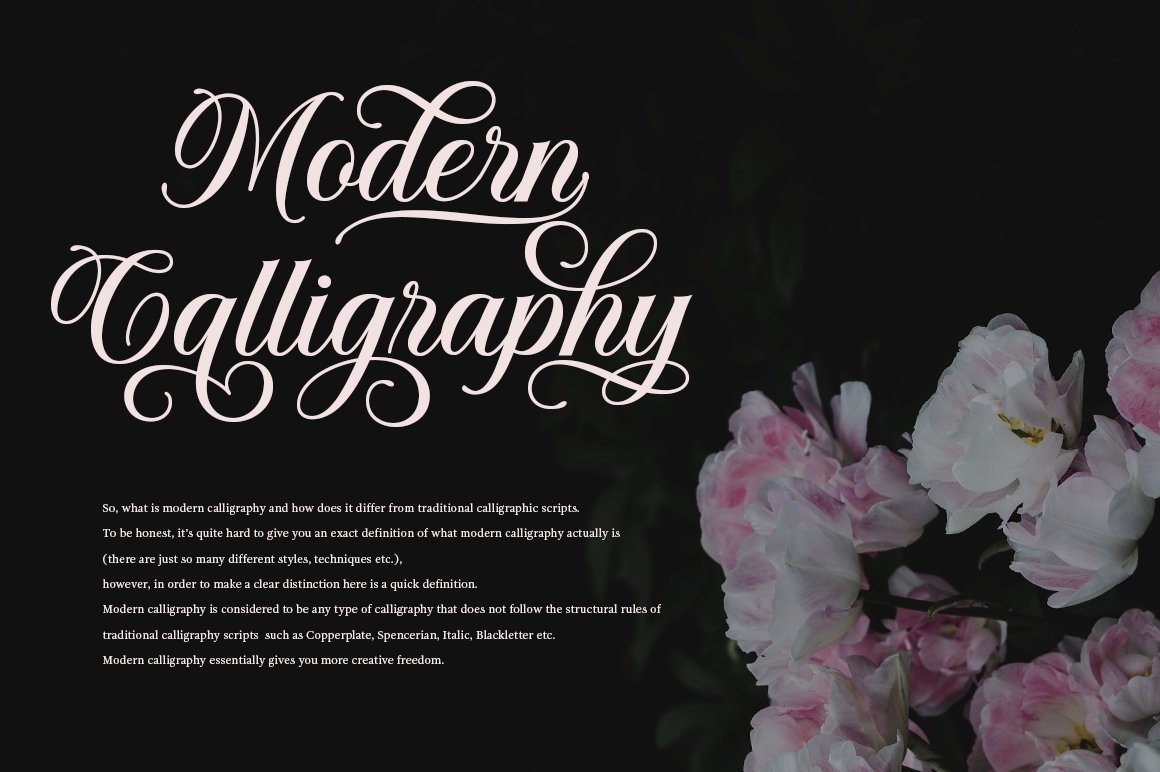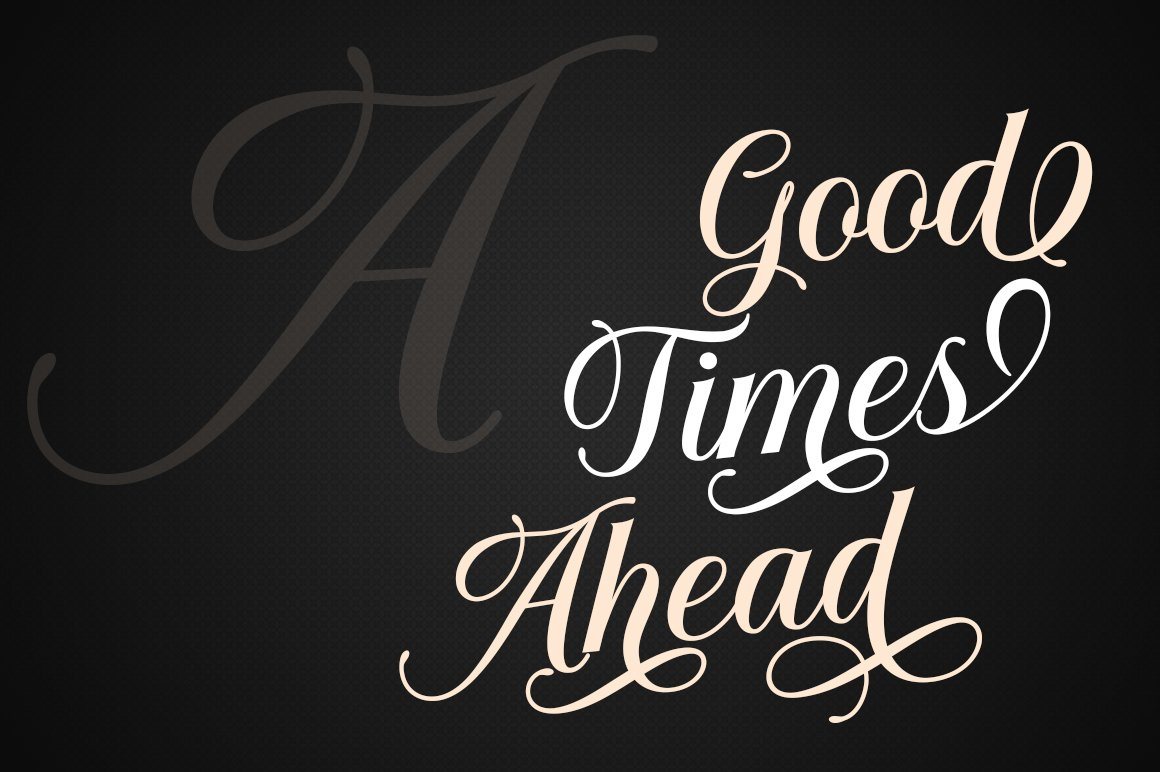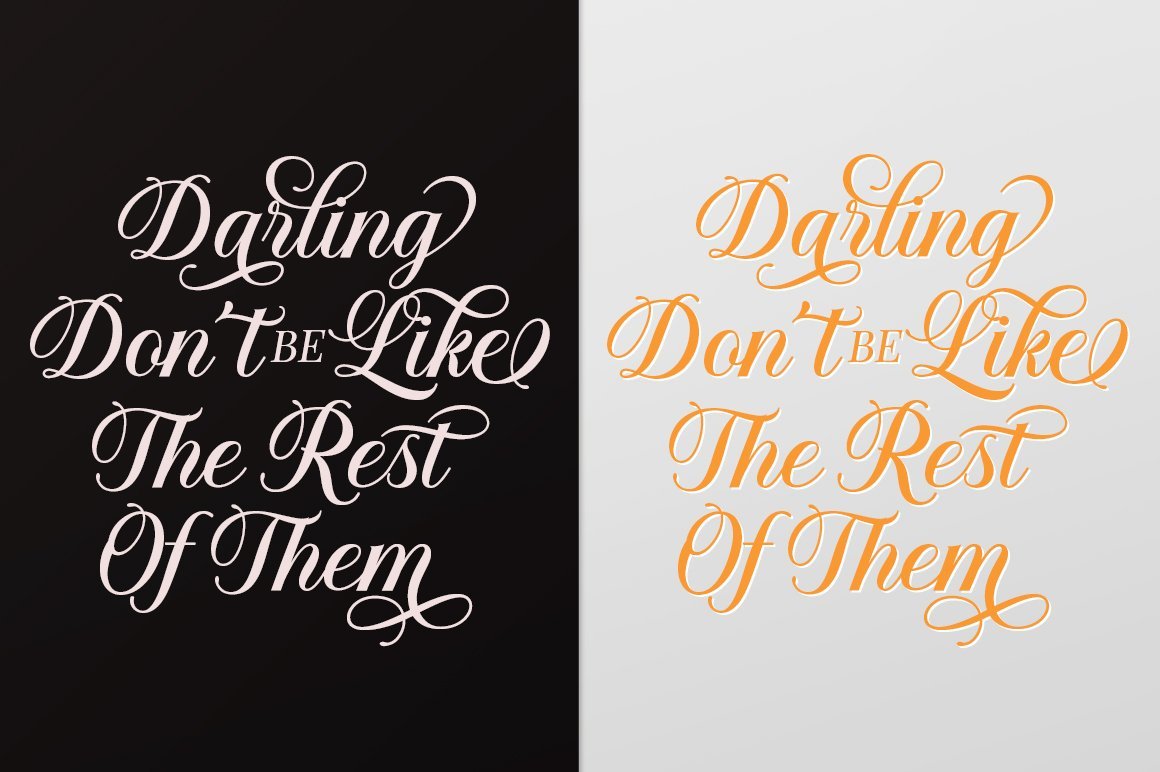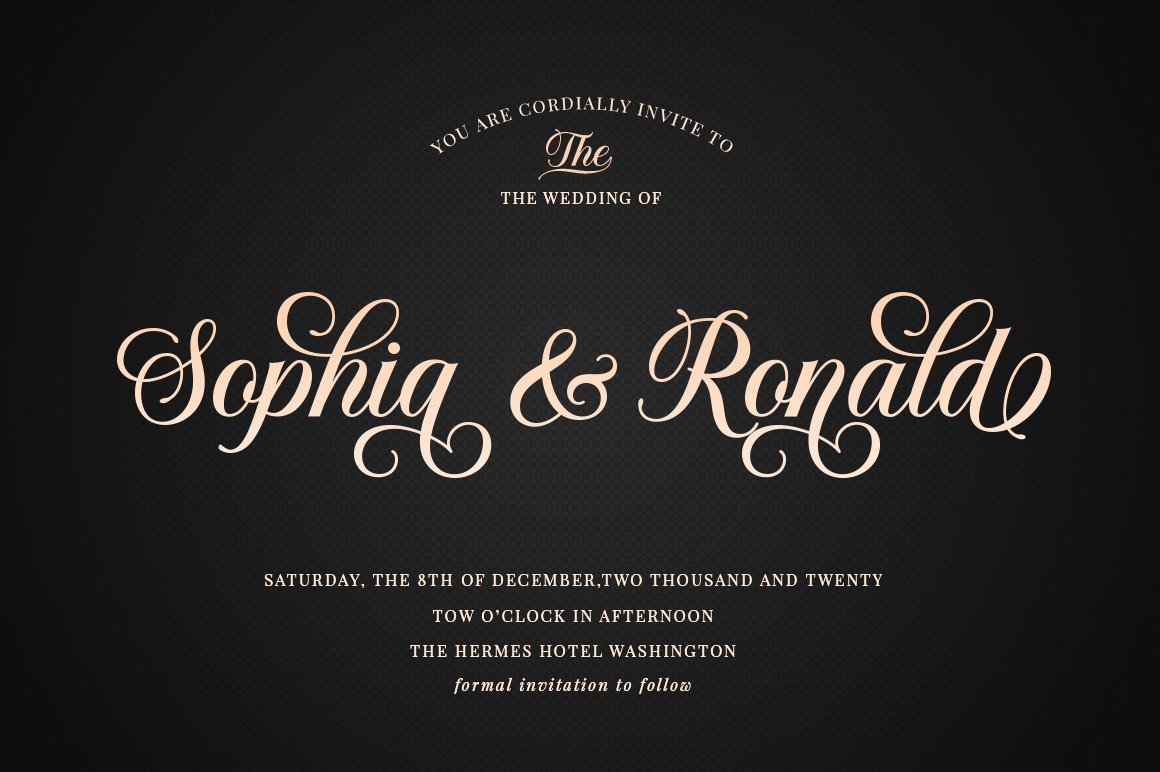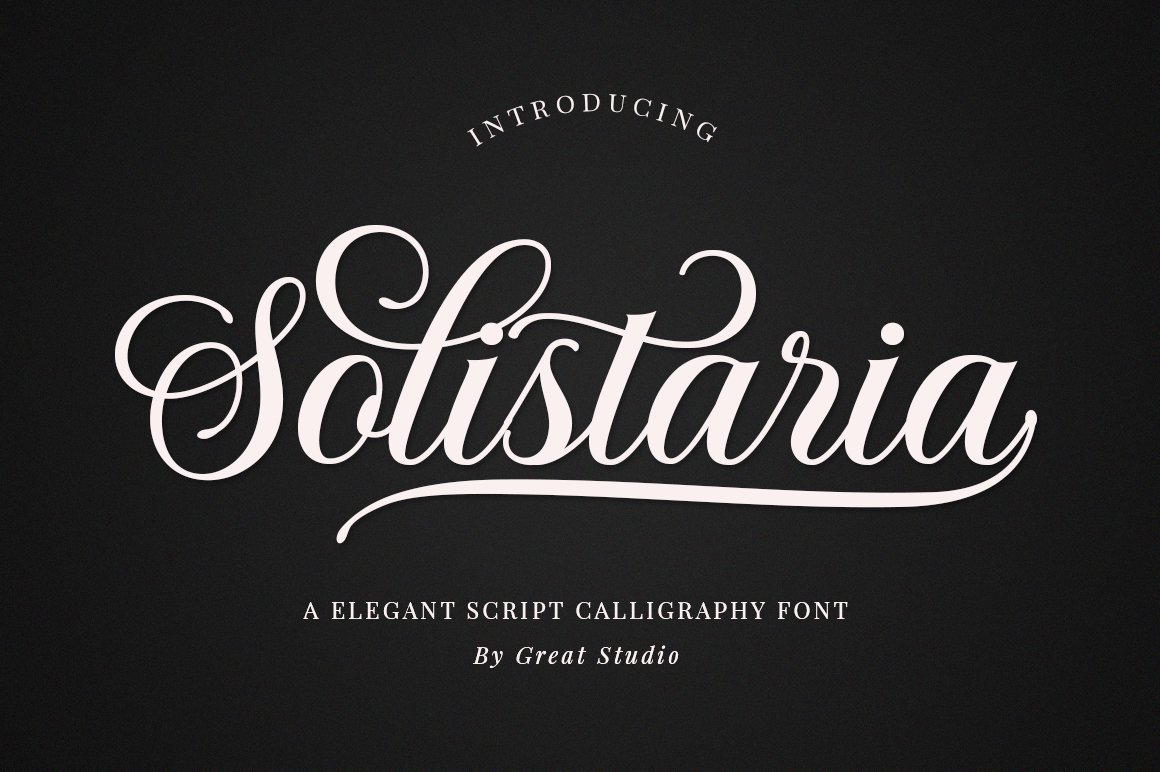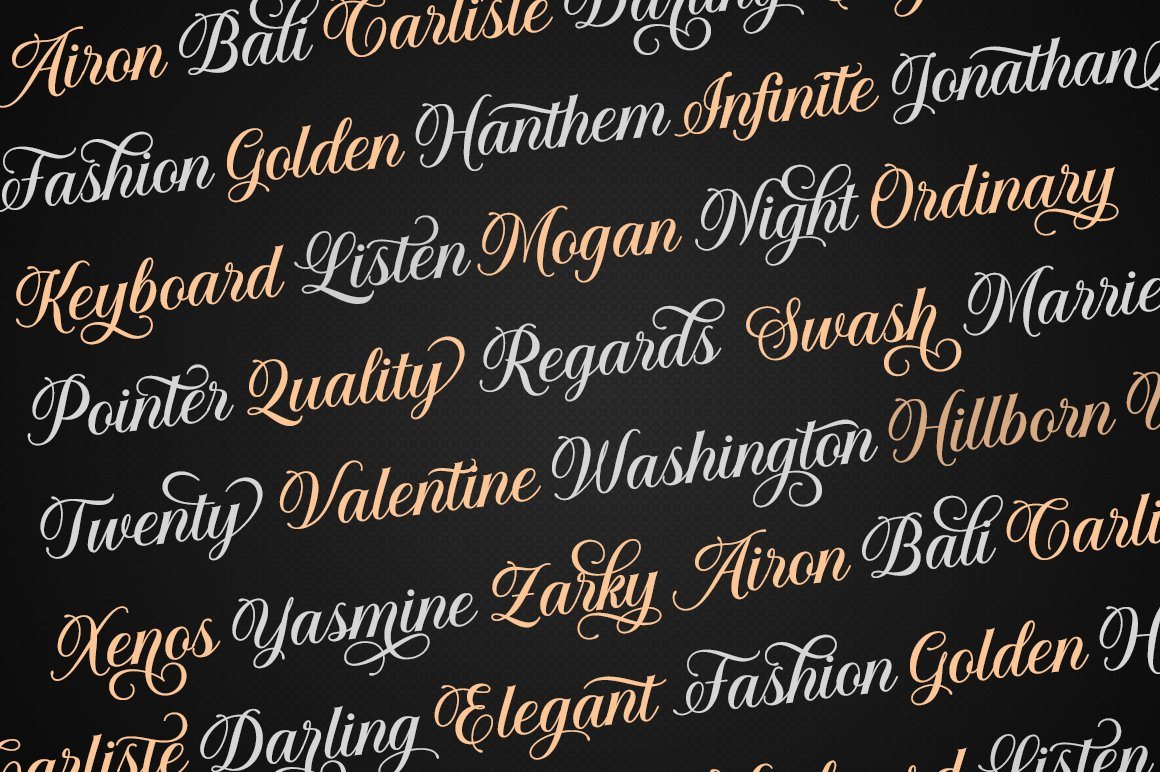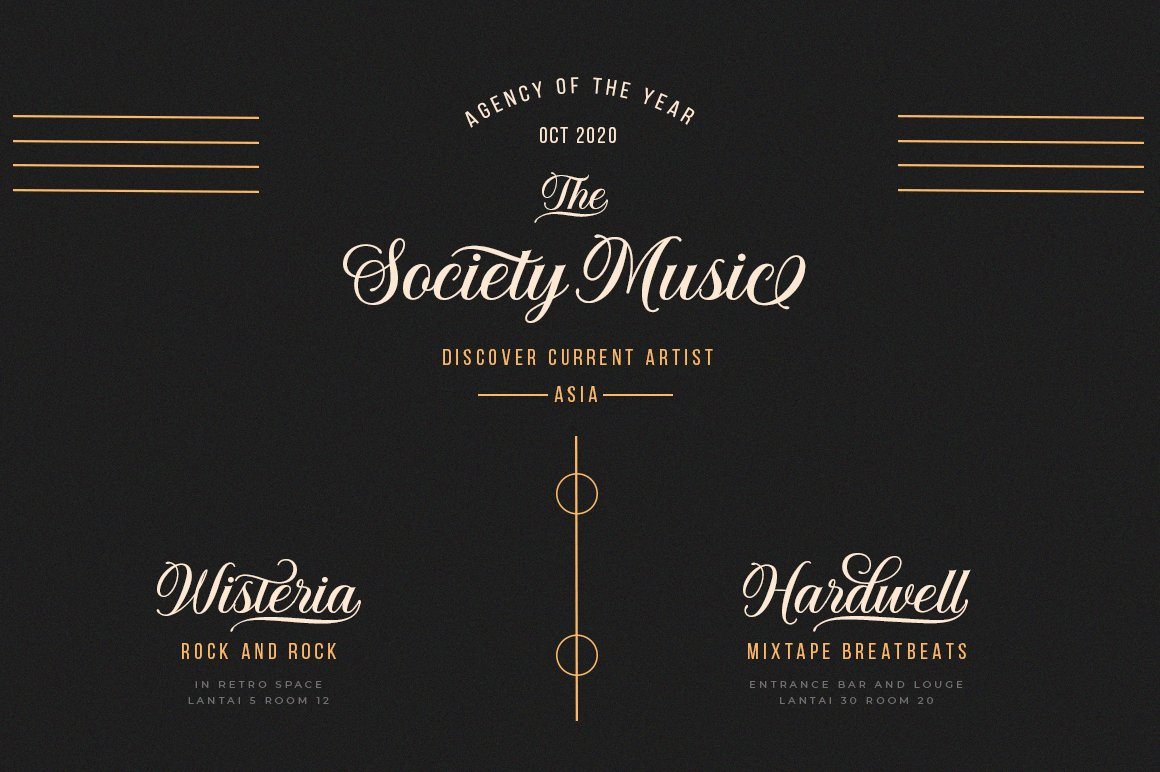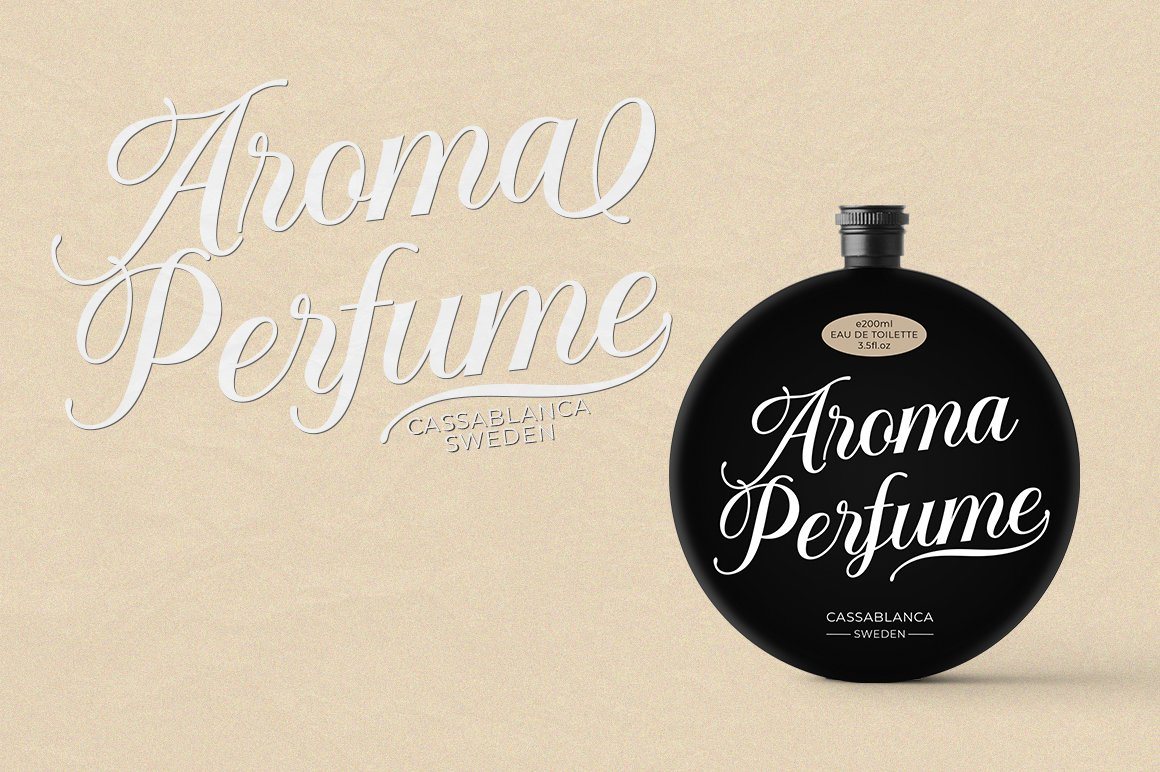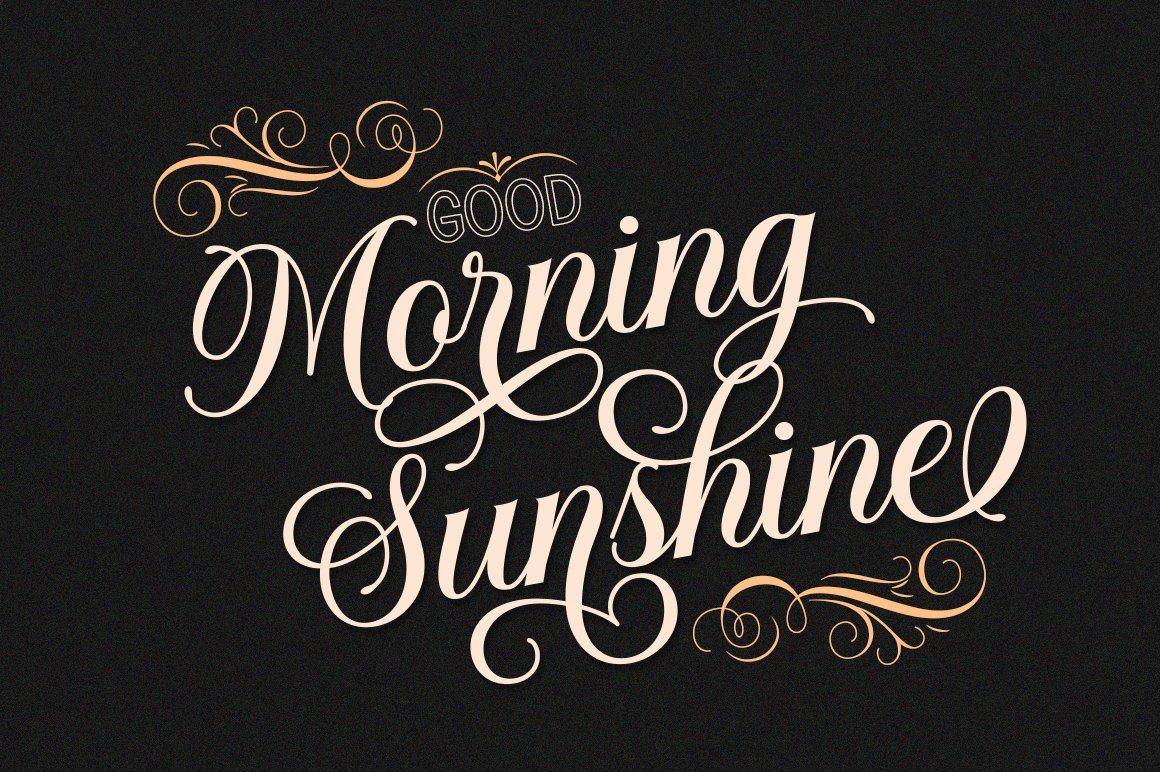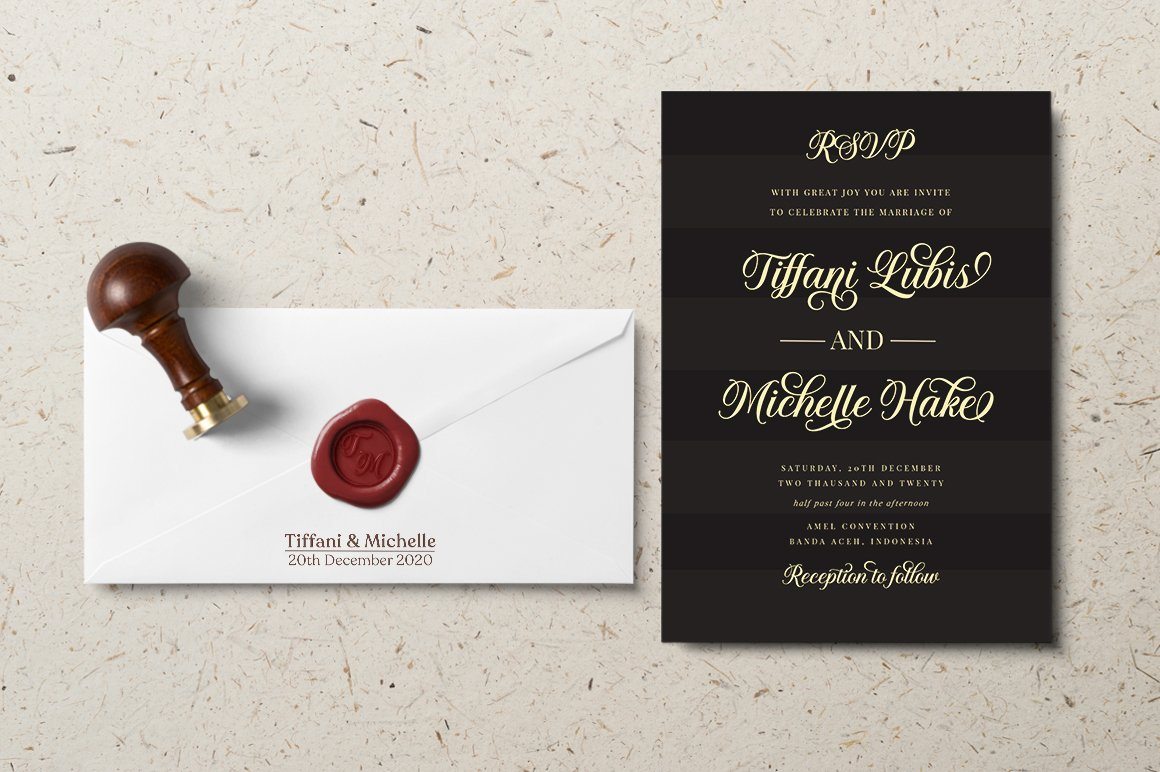
Solistaria-Elegant Calligraphy Font
About Solistaria-Elegant Calligraphy Font
Solistaria Script is new quality calligraphy font. High-quality script fonts come with modern and vintage touches in them. Inspired by a mixture of copper calligraphy with handlettering style. OpenType feature with Stylistic Alternatives, Swash, Ligatures, Stylistic sets. It allows you to mix and match letter pairs to fit your design, and also comes with modern ornaments to make this font look elegant and perfect. Solistaria Script is attractive like a smooth, clean, feminine, sensual, glamorous, simple and very easy to read. The classic style is perfect to be applied in various formal forms such as invitations, labels, menus, logos, fashion, make up, stationery, letterpress, romantic novels, books, greeting / wedding cards, packaging, labels, and more. What Is Included : Solistaria Script Regular (OTF/TTF) Solistaria Script Italic (OTF/TTF) Solistaria Script also supports in pragram, Adobe Illustrator, Adobe Photoshop, Adobe InDesign, Corel Draw X version, Microsoft Word. Language Support : Albanian, Basque, Breton, Chamorro, Danish, Dutch, English, Faroese, Finnish, French, Frisian, Galician, German, Icelandic, Italian, Malagasy, Norwegian, Portuguese, Spanish, Swedish. Cheers, Great Studio